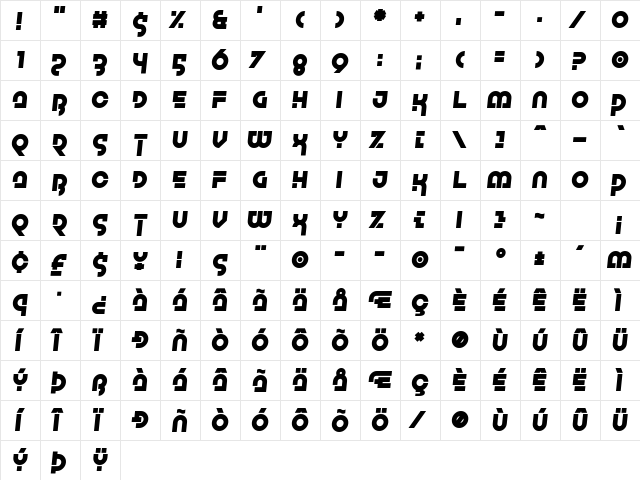
Galaxy Girl Slant Regular
| Designer | Allison James |
Design Context for Galaxy Girl Slant Typeface
Galaxy Girl Slant takes a measured approach to typography — its balanced proportions and neutral character make it a reliable workhorse for both digital and print work.